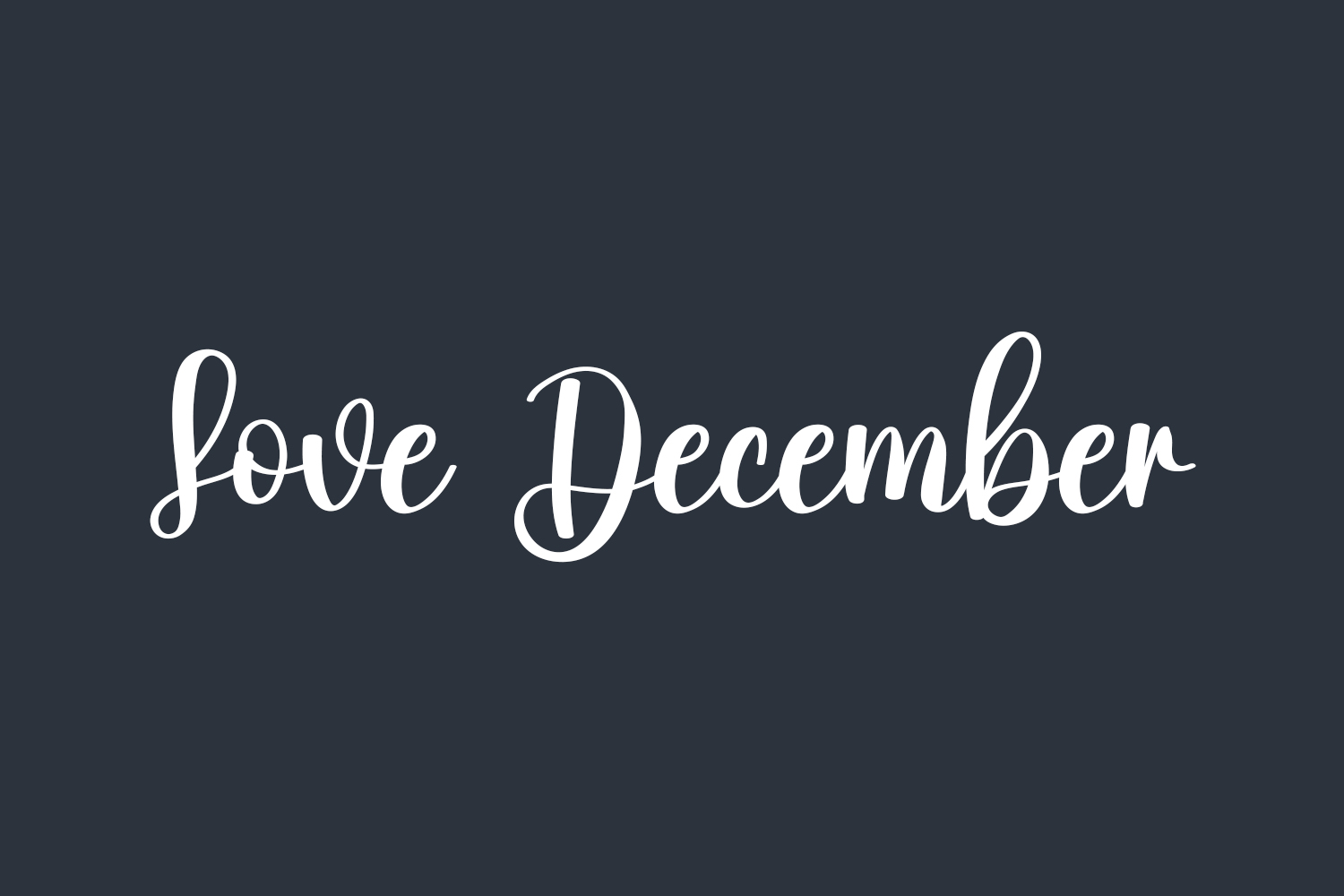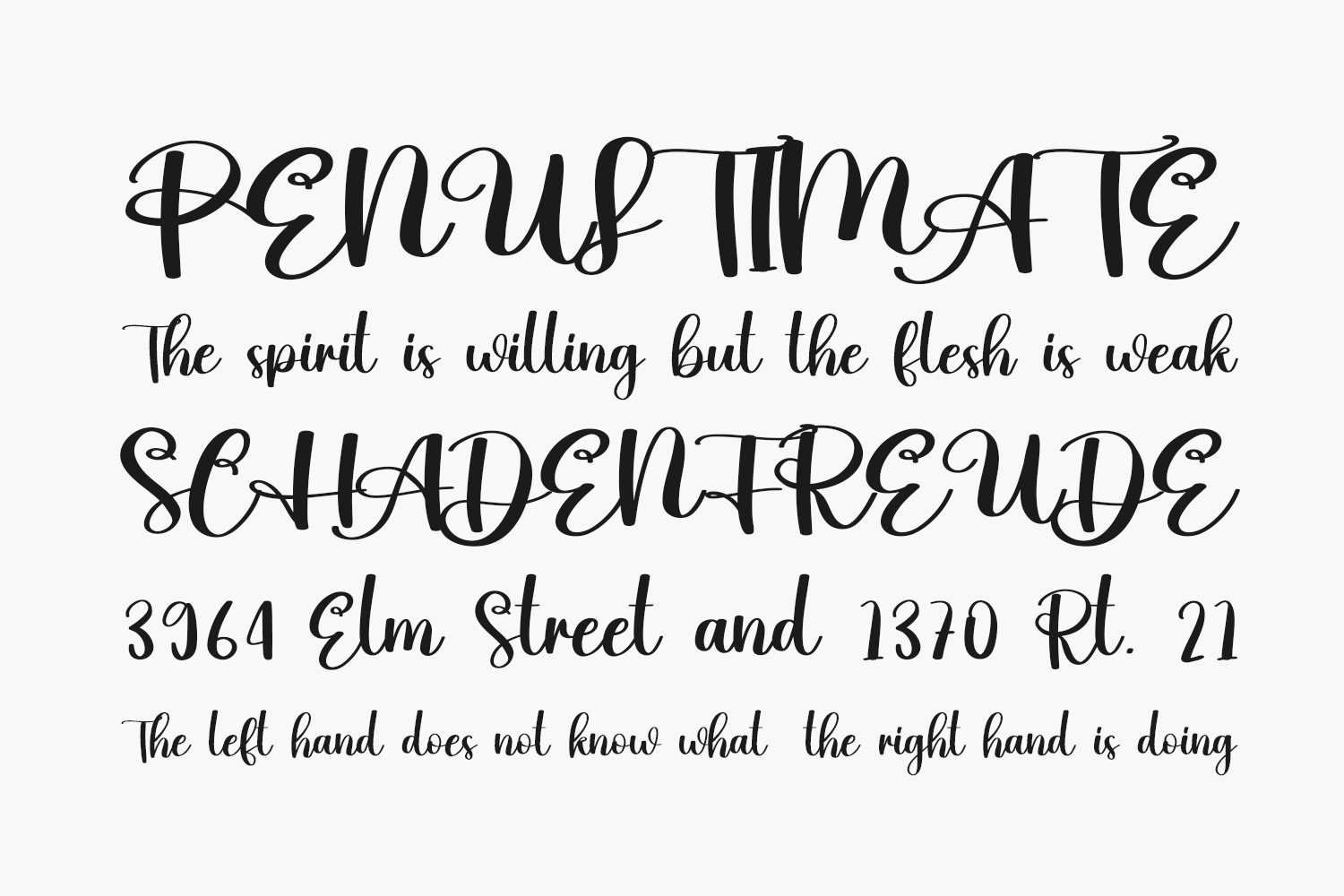
Embrace the charm of Love December Free Font, a meticulously crafted handwritten font destined to be your ultimate favorite. Balancing classic calligraphic elements with a modern and refreshing feel, this font is poised to elevate your projects to new heights. Immerse yourself in its allure and watch your creative endeavors reach their pinnacle. Love December Free Font and is free for personal use only. Please purchase the full version for commercial use.